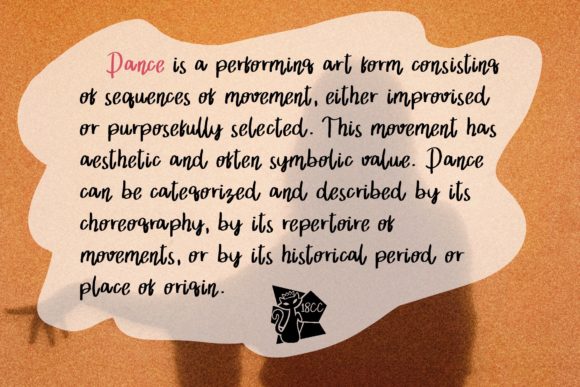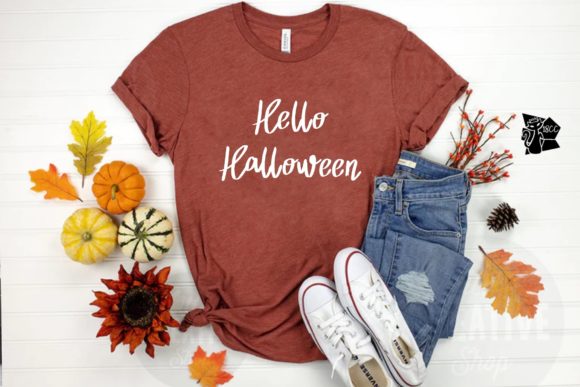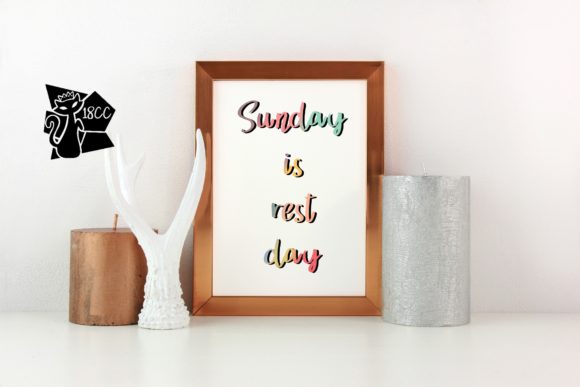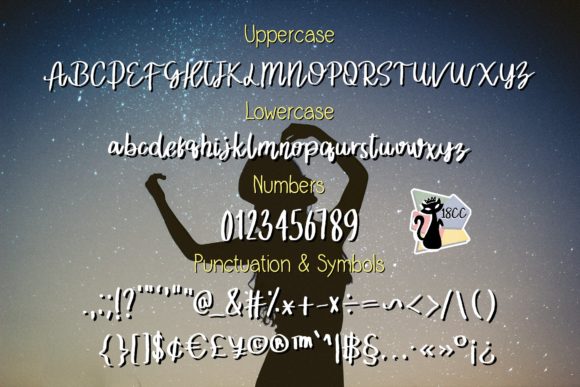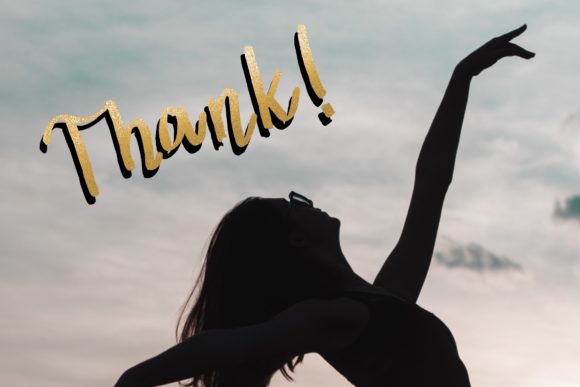
Introduction to Lallaland Font
Have you ever found yourself staring at a blank page, desperate for the perfect font to bring your creative vision to life? I know I have. As a designer, there’s nothing quite like the thrill of discovering a high-quality font that elevates your project to the next level. And that’s exactly what Lallaland Font is – a chic, refined script font that exudes sophistication and elegance.
From wedding invitations to branding materials, the Lallaland Font is a versatile design resource that’s sure to impress. With its stylish alternates and ligatures, this font is the perfect match for any creative project that demands a touch of class. And the best part? It’s available for free download, making it an accessible addition to any designer’s toolkit.
Whether you’re working on a high-end campaign or a personal project, the Lallaland Font is a valuable asset that’s sure to make your design shine.
Key Features of Lallaland Font
- High-quality design for creative projects, including logos, branding, and graphics.
- Designed to be highly legible and versatile, suitable for a wide range of font sizes and resolutions.
- Includes a comprehensive character set, covering a broad range of languages and special characters.
- Perfect for designers working on digital projects, offering a unique and creative touch to their work.
Honest Review: Lallaland Font
I recently came across the Lallaland Font and was excited to give it a try in my latest creative project. As a designer, I’m always on the lookout for high-quality fonts that can elevate my designs and make them stand out.
The Lallaland Font does not disappoint. It has a unique and playful style that is perfect for adding a touch of whimsy to any design. One of the things I appreciate about this font is its transparent background, which makes it easy to use as a design resource.
Here are some of the things that work well with the Lallaland Font:
- Unique and playful style ✨
- High-quality design ✨
- Transparent background ✨
One potential limitation of the Lallaland Font is that it may not be suitable for all types of projects. It’s a bit more experimental in style, so it may not be the best choice for more formal or traditional designs.
- May not be suitable for formal or traditional designs ⚠️
Overall, I’m impressed with the Lallaland Font and would definitely consider using it in future creative projects. Its unique style and high-quality design make it a valuable addition to any design resource library.
Tips for Getting the Most Out of Lallaland Font
Experiment with different font sizes, colors, and styles to find the perfect combination for your design project. Use Lallaland Font to create text elements with a transparent background for a unique and creative look. With its high-quality design, Lallaland Font is an excellent choice for any creative project.
Lallaland Font is perfect for a wide range of creative projects, including business cards, brochures, posters, and social media graphics. Its unique design and high-quality font make it an excellent choice for any design project that requires a touch of elegance and sophistication.